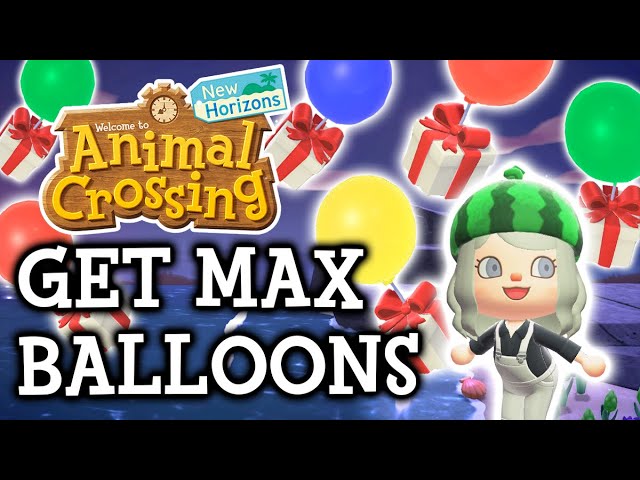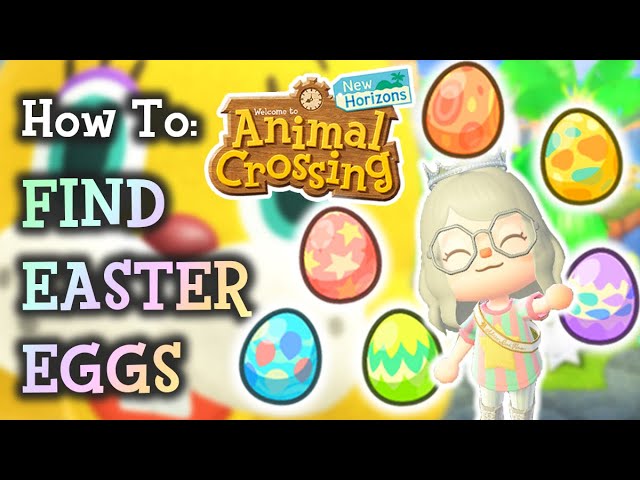
Animal crossing is a social simulation game created by katsuya eguchi and hisashi nogami. Meow is a virtual cat pet who walks on your screen while you're browsing the web.
Animal crossing font google docs. Get global city, region, and country data. Neale davidson designed the elegant pokemon font. Download free fonts for mac, windows and linux.
Select a style by clicking on it, and press the create button to update your text using your new selection. Below you can download free fink heavy font. Animal crossing new leaf dialogue font?
It is a fancy animated type of font. Once you become close enough friends, you can invite them to your campsite. Introducing you to another amazing font family designed for the animal crossing game.
Nintendo is behind its development and distribution. Animal crossing font is quite majestic, appealing and one of the modest type design styles. Supreme font, toy story font can be used as an alternative to this font.
The font used for the title of the animation series is very similar to rat fink heavy. This font is also used in the video game pocket monsters. Access google drive with a free google account (for personal use) or google workspace account (for business use).
A comic font named fink heavy font looks very similar to. To delete everything, select all time. Change the usual mouse pointer to an amazing custom cursor.
Fink heavy font is the typeface that has been used to design the title of this game. In the game, the player lives in a village inhabited by anthropomorphic animals, carrying out various activities. The font used for the game title is probably fink heavy, a comic font from house industries.
This is to give them an idea on which of your packages they can avail of. All fonts are in truetype format. Animal crossing is a community simulation video game series developed and published by nintendo.